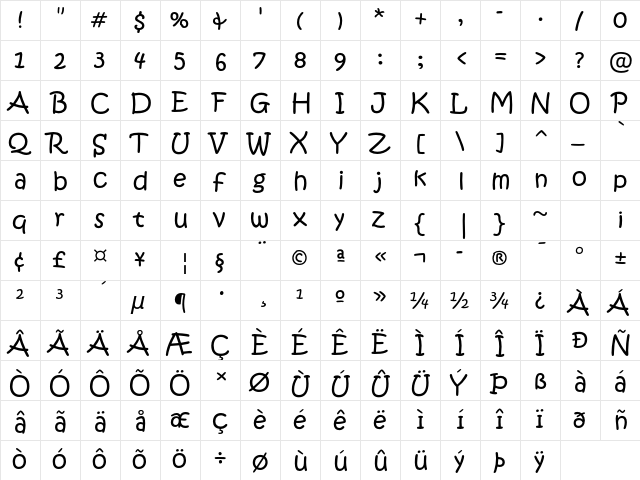
Kristen Normal ITC Std Regular
| Designer | George Ryan |
Design Context for Kristen Normal ITC Std Typeface
Kristen Normal ITC Std is a composed and adaptable typeface that performs quietly and consistently across a wide range of design contexts.